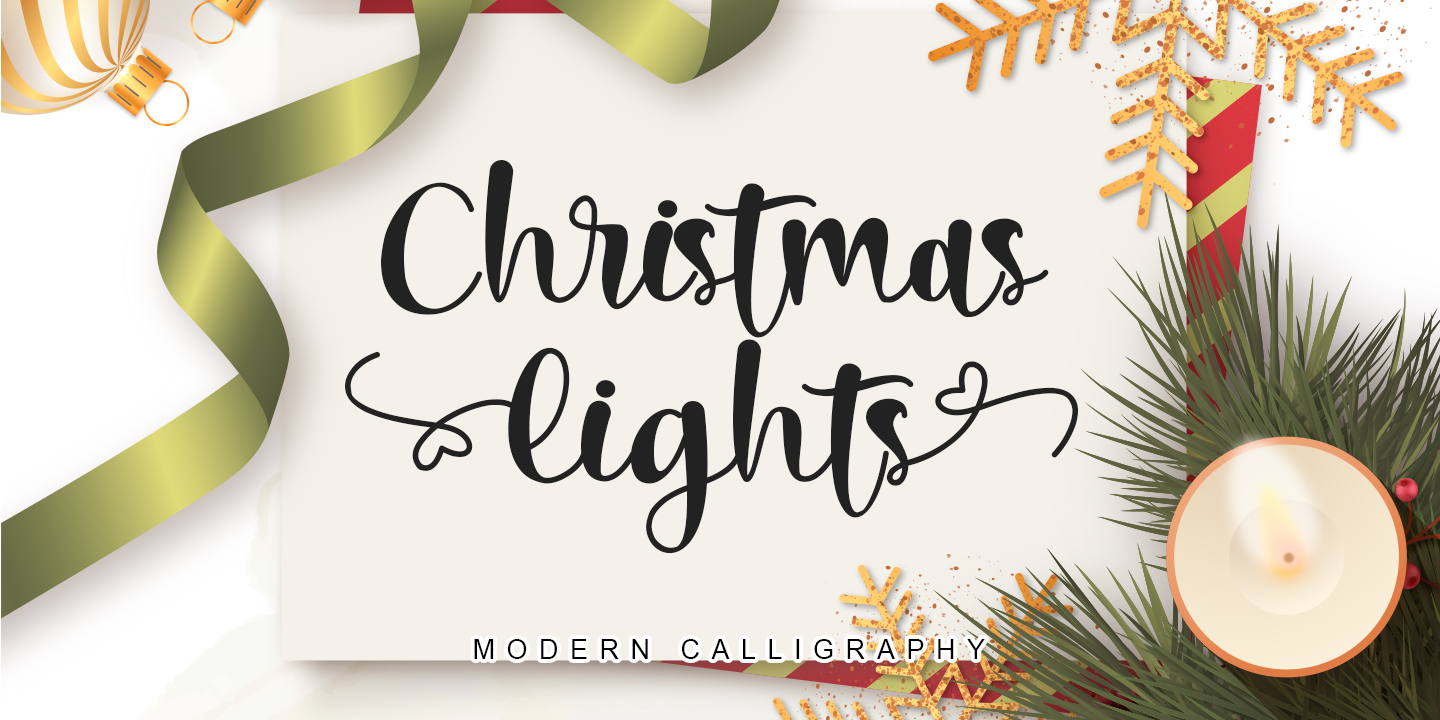
Christmas Lights Font Free Download is a festive and decorative typeface that captures the joyful spirit of the holiday season. Inspired by glowing string lights and cozy winter nights, this font is perfect for Christmas cards, holiday invitations, festive banners, gift tags, and seasonal branding.
Whether you're designing cheerful greeting cards, merry merch designs, or eye-catching social media posts, Christmas Lights Font Free Download adds a dose of holiday magic and nostalgic charm. Its whimsical, hand-drawn style brings warmth and brightness to every project it touches.